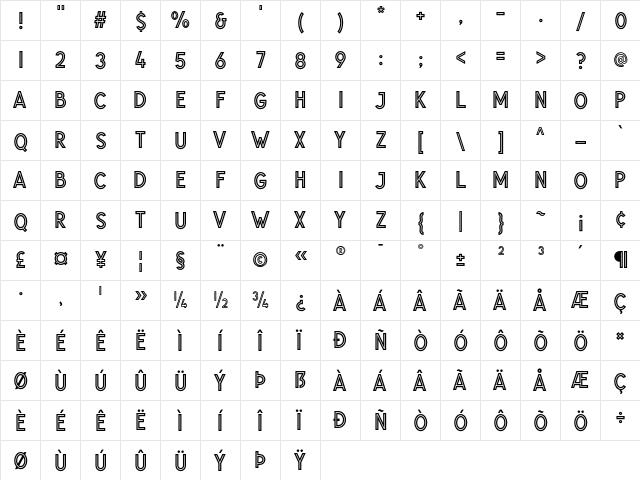
Glaschu Inline Regular
| Foundry | Braw Type |
| Designer | Rae Arnott |
Design Context for Glaschu Inline Typeface
Glaschu Inline is built around its visual character rather than neutral utility — its distinctive forms are designed to make an impression at display sizes.
Font Pairing: Pair with a clean neutral sans-serif for body copy to let Glaschu Inline's character lead without overwhelming the composition.
Pro Tip: Use Glaschu Inline exclusively at display sizes — it was designed to be seen, not read at length. Let a neutral companion handle body copy.